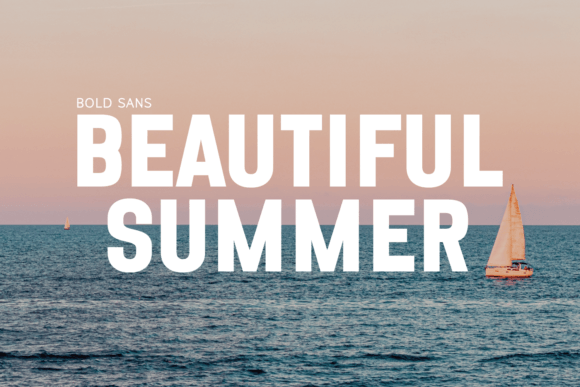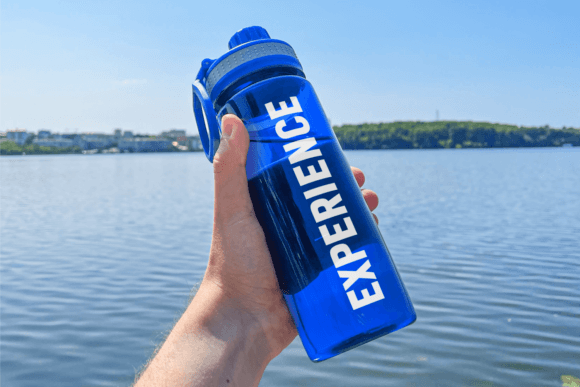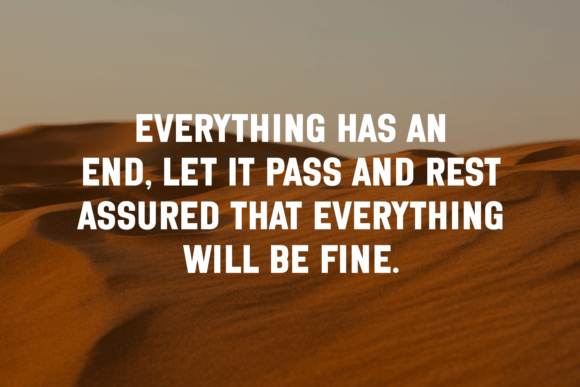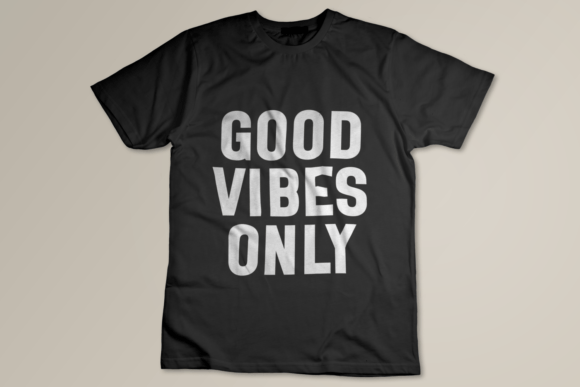
The Power of Female Font: Elevate Your Designs with Confidence
I’ll never forget the time I was working on a project for a client who needed a bold and assertive font to convey their brand’s message. I had spent hours scouring through my font library, but nothing seemed quite right. That’s when I stumbled upon Female Font, a game-changing sans serif font that instantly elevated my design. In this article, I’ll share my experience with Female Font, its features, and how to make the most of it in your designs.
An Honest Review of Female Font
Female Font has become a staple in my font library, and for good reason. Here’s what I love about it:
- ✨ **Bold and assertive**: Female Font makes a statement, perfect for headlines, titles, and emphasis.
- ✅ **Versatile**: It works well with a variety of design styles, from modern and minimalist to bold and playful.
- 💡 **Easy to read**: Despite its boldness, Female Font remains clear and legible, even at smaller sizes.
Of course, no font is perfect, and Female Font has a few quirks:
- 🤔 **Limited italic options**: While Female Font has a range of weights, its italic options are somewhat limited.
- ⚠️ **Not ideal for body text**: Due to its boldness, Female Font is best used for headings and titles rather than body text.
A Practical Guide to Using Female Font
The Story Behind Female Font
Female Font was designed with the intention of creating a bold and assertive font that would make a statement. Inspired by modernist design principles, the font’s creator aimed to craft a font that would be both versatile and eye-catching. While the font’s exact origins are unclear, its impact on the design world is undeniable.
| Font Name | Female Font |
| Author | Damai (7NTypes) |
| What is Female Font best used for? | Female Font is ideal for headlines, titles, and emphasis, where a bold and assertive font is needed. |
| Is Female Font suitable for body text? | No, Female Font is best used for headings and titles rather than body text, due to its boldness. |